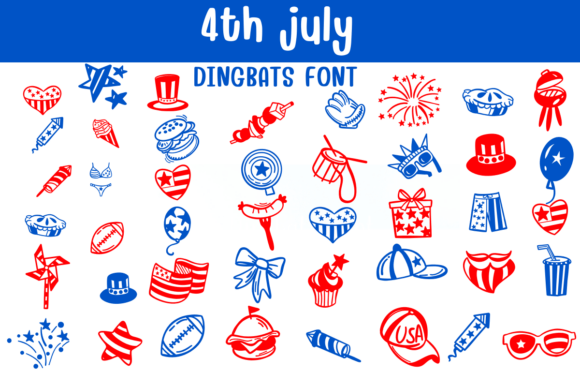
As the sun sets on a warm summer evening, you find yourself scrolling through your favorite design platforms, searching for the perfect font to give your project that extra oomph. And then, it hits you – the sparklers, the fireworks, the stars and stripes – it’s time to get festive with the 4th July Font!
This charming dingbats font is a treasure trove of patriotic icons, designed to make your Independence Day crafts, party invitations, and USA-themed decor truly shine. With its vibrant red, white, and blue hues, the 4th July Font is the perfect way to add a dash of American flair to your designs.
For designers, the 4th July Font is a valuable resource, offering endless possibilities for creative expression. Whether you’re working on a patriotic project or just need a fun font to spice up your designs, this font is sure to be a star of the show!
Key Features of 4th July Font
- Unique Characteristics: This font features a bold, celebratory design with a patriotic theme, perfect for Independence Day or summer-themed designs
Designer Review: 4th July Font
At first glance, the 4th July Font seems like a fun and quirky addition to any design project. ✨ I appreciate the creative use of bold, colorful characters to evoke a patriotic feel. The font is perfect for projects that require a lighthearted, celebratory tone.
- ✨ Unique and creative characters
- ✨ Bold and eye-catching design
- ✨ Suitable for patriotic or summer-themed projects
However, there are a few limitations to consider. ⚠️ The font may be too bold for some projects, and the characters can feel a bit cluttered when used in large quantities. Additionally, the font may not be suitable for professional or formal designs, as it can come across as too playful.
Overall, I would say that the 4th July Font is a fun and creative addition to any design project that requires a lighthearted tone. While it may have some limitations, it’s perfect for projects that need a bit of flair and personality.
The 4th July Font is a patriotic font, making it perfect for Independence Day-themed designs. Use it to create:
– Firework-inspired graphics
– American flag designs
– Patriotic posters and banners
For optimal results, use the 4th July Font in bold or italic styles to add emphasis to your text.